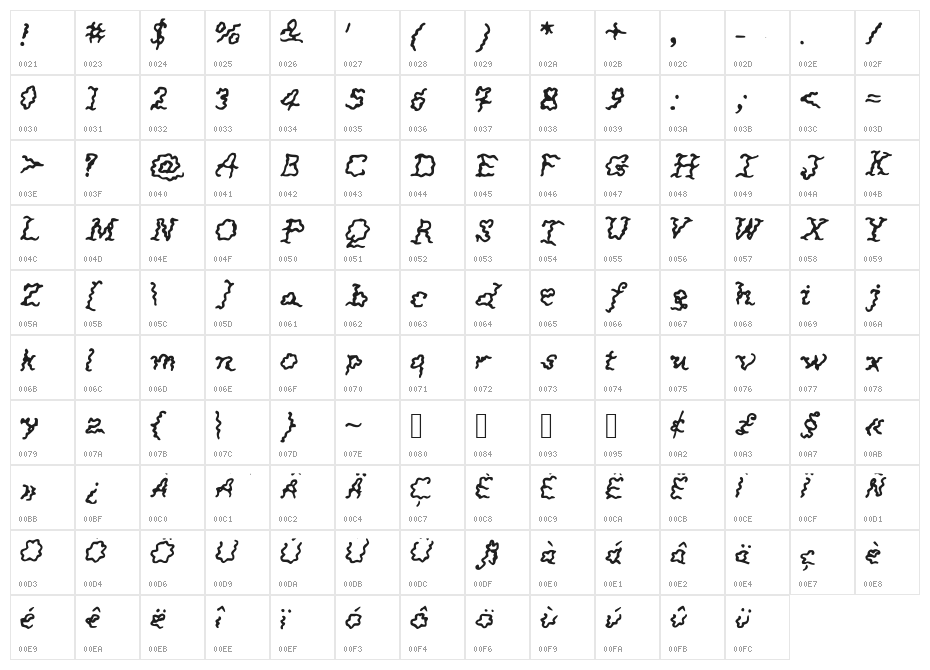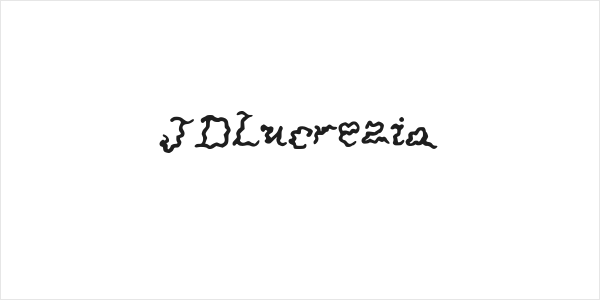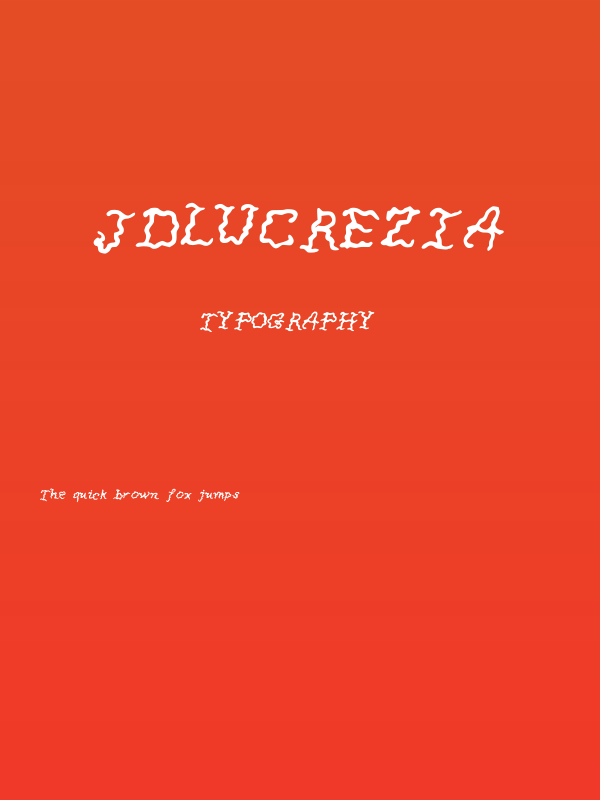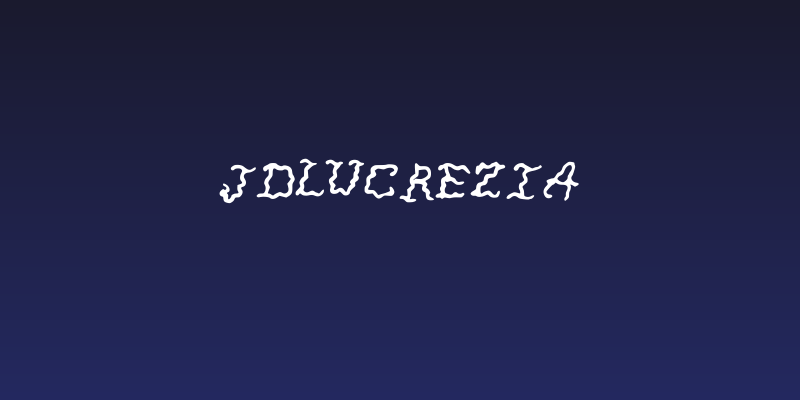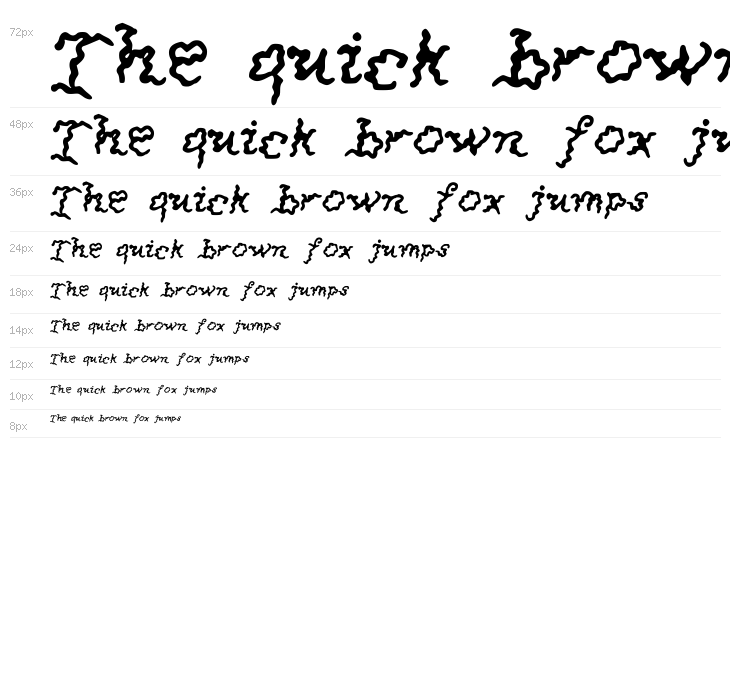
JDLucrezia Font
JDLucrezia Description
This font features a unique, organic design with irregular, wavy edges that give it a hand-drawn appearance. The characters are bold and have a playful, almost whimsical style, reminiscent of natural forms like vines or roots. The uppercase and lowercase letters maintain a consistent style, with the uppercase being slightly more pronounced. Numbers and special characters follow the same design principles, ensuring a cohesive look. This font stands out due to its distinctive, artistic flair, making it ideal for creative projects that require a touch of individuality.
| Proposed Projects | Ideal for artistic projects, children's books, creative branding, or any design needing a playful, unique touch. |